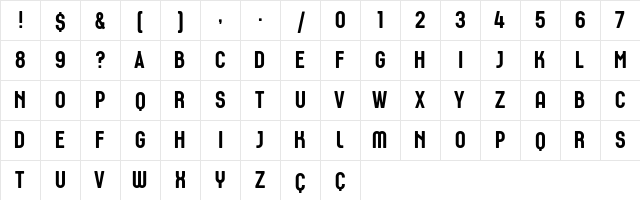
Aurelio Titling Trial
| Foundry | NowType |
| Designer | Lucas Franco & Claudio Rocha |
Design Context for Aurelio Typeface
Aurelio takes a measured approach to typography — its balanced proportions and neutral character make it a reliable workhorse for both digital and print work.